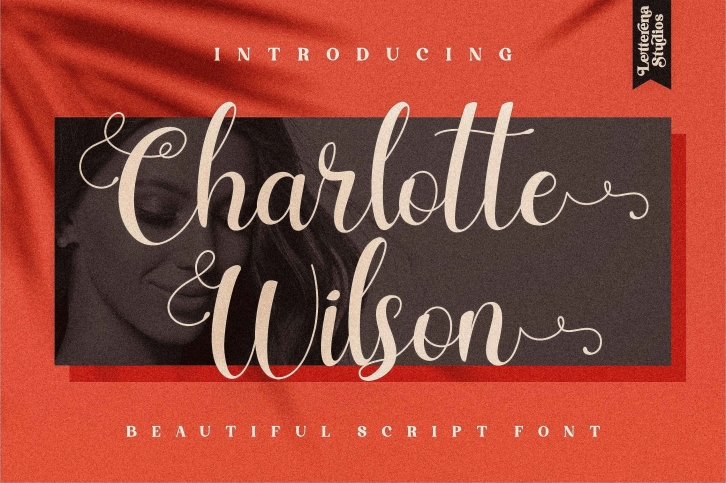
Charlotte Wilson is a great font that was designed by Letterena Studios. Imagine the amount of combinations you can create using this font! The archive is 8.84 MB and it was released on December 7, 2020. Charlotte Wilson looks beautiful on wedding invitations, greeting cards, logos, posters, labels, t-shirt designs, logos, business cards and is perfect for use in ink or watercolor works, fashion, magazines, packaging and food menus, children's books and more!